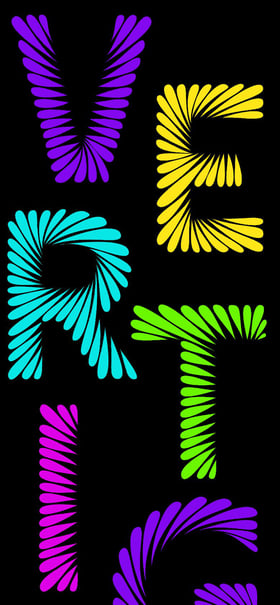
Vertigo Typeface
Amanda Piotrowski
Storytelling One Pager sharing the tale of how the Vertigo Typeface came to life during Amanda Piotrowski’s Typographic Design course at the University of Wisconsin – Stout.